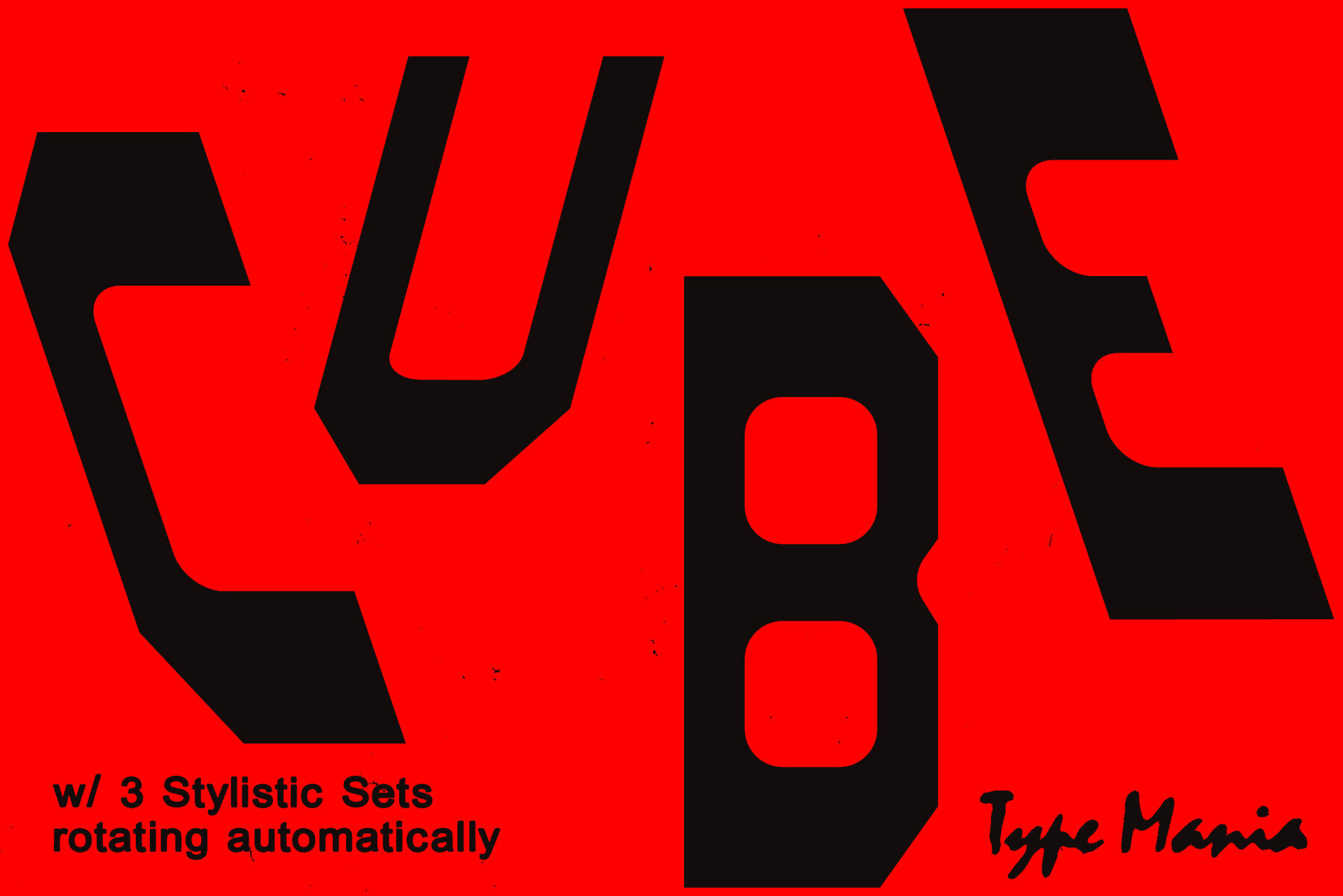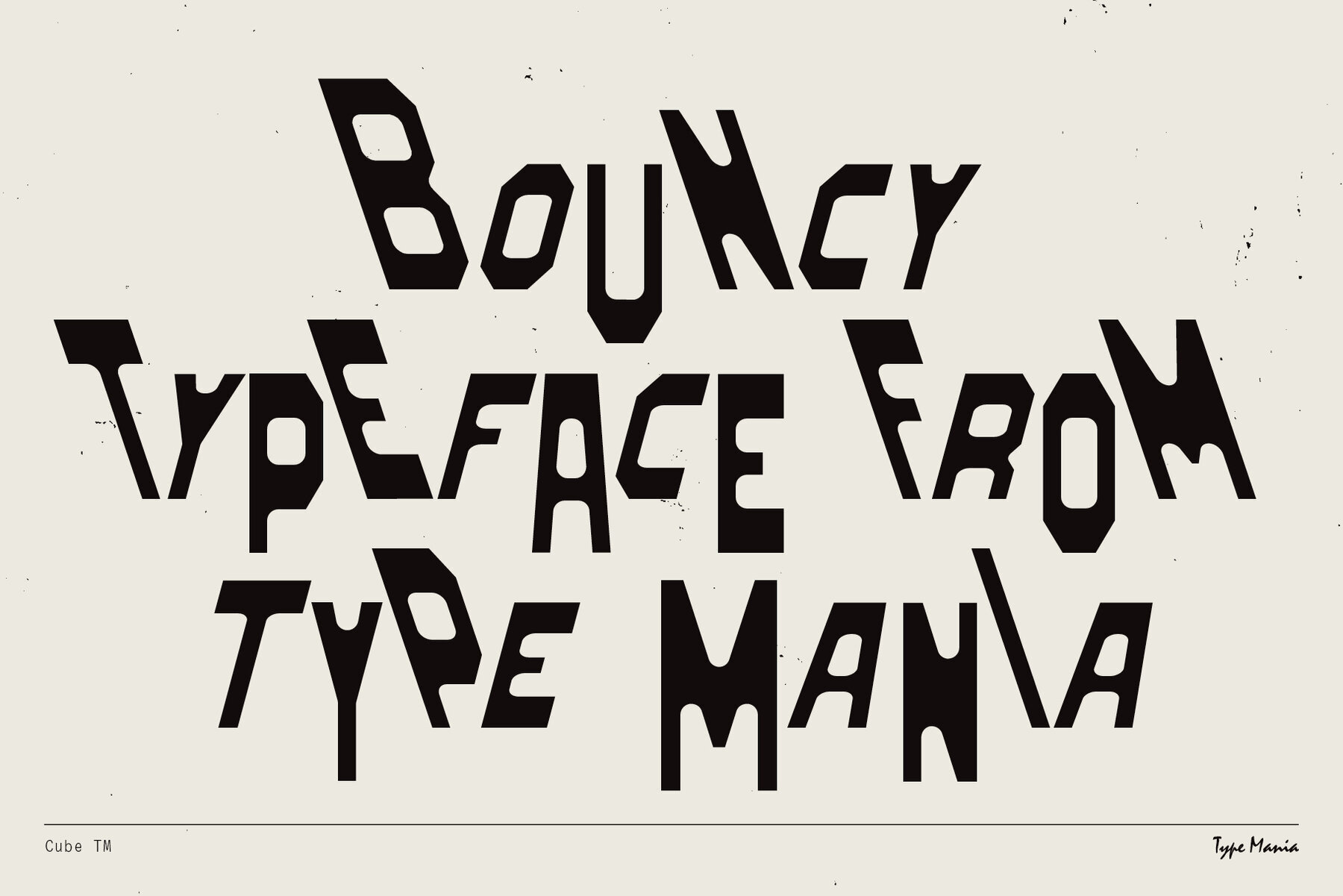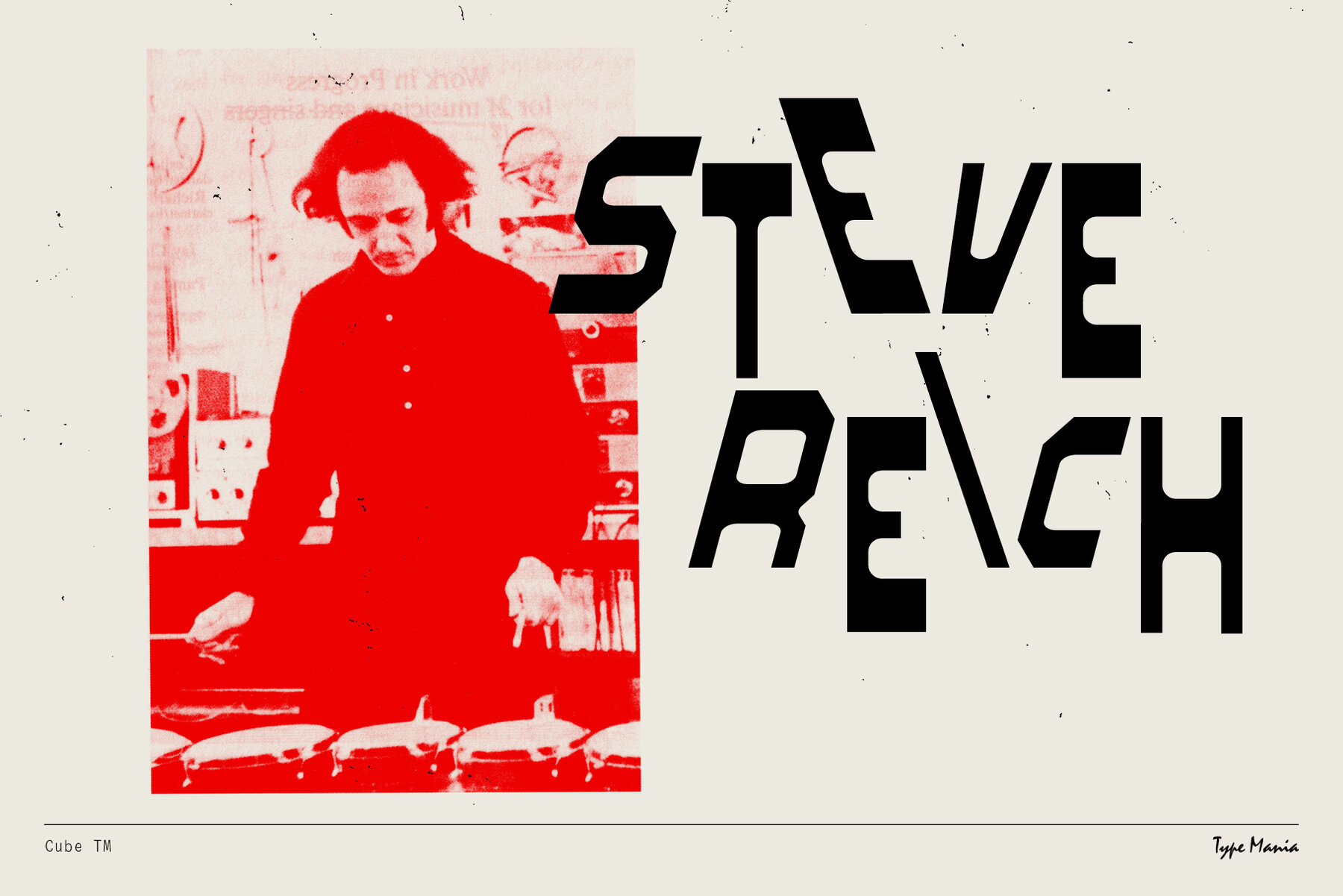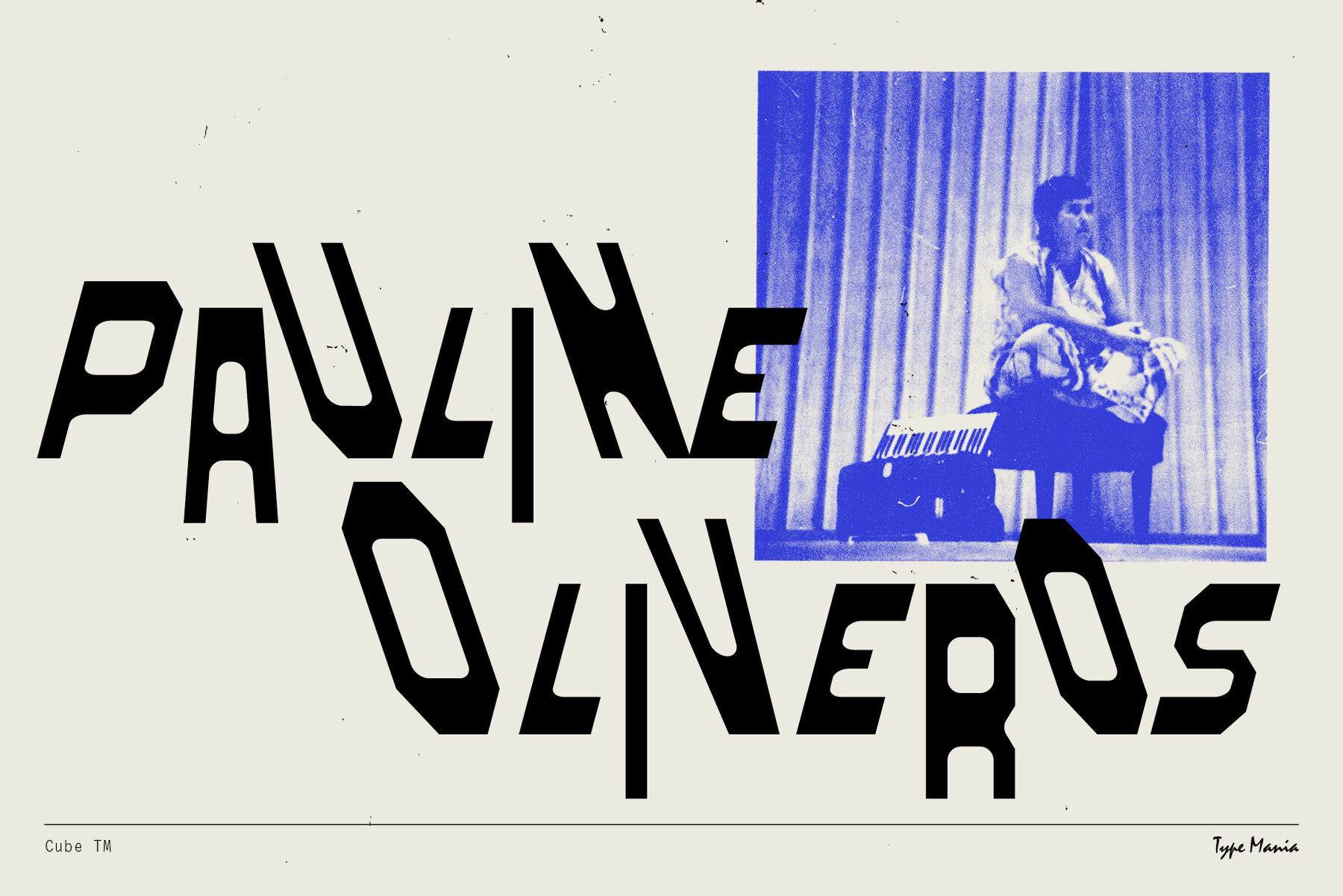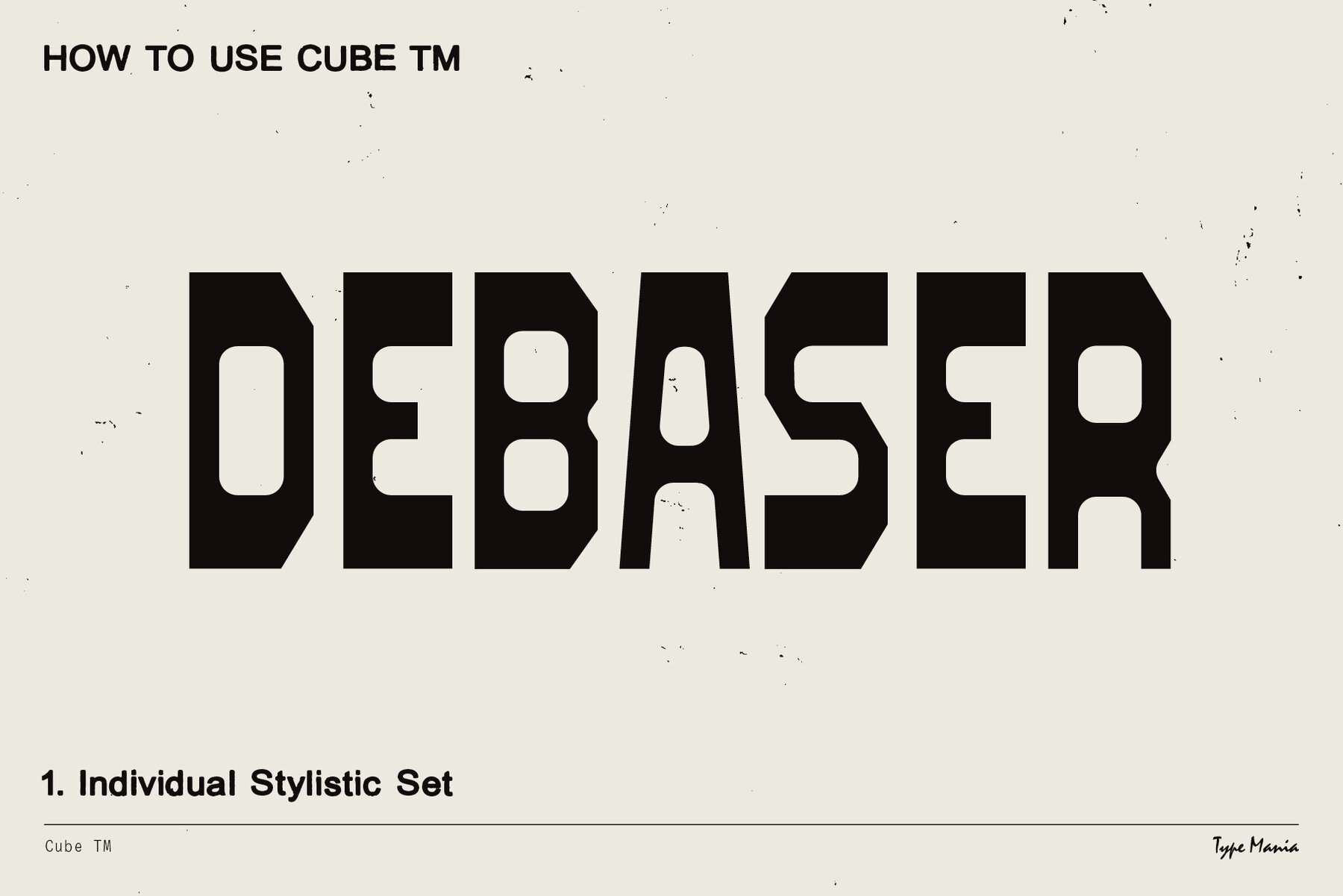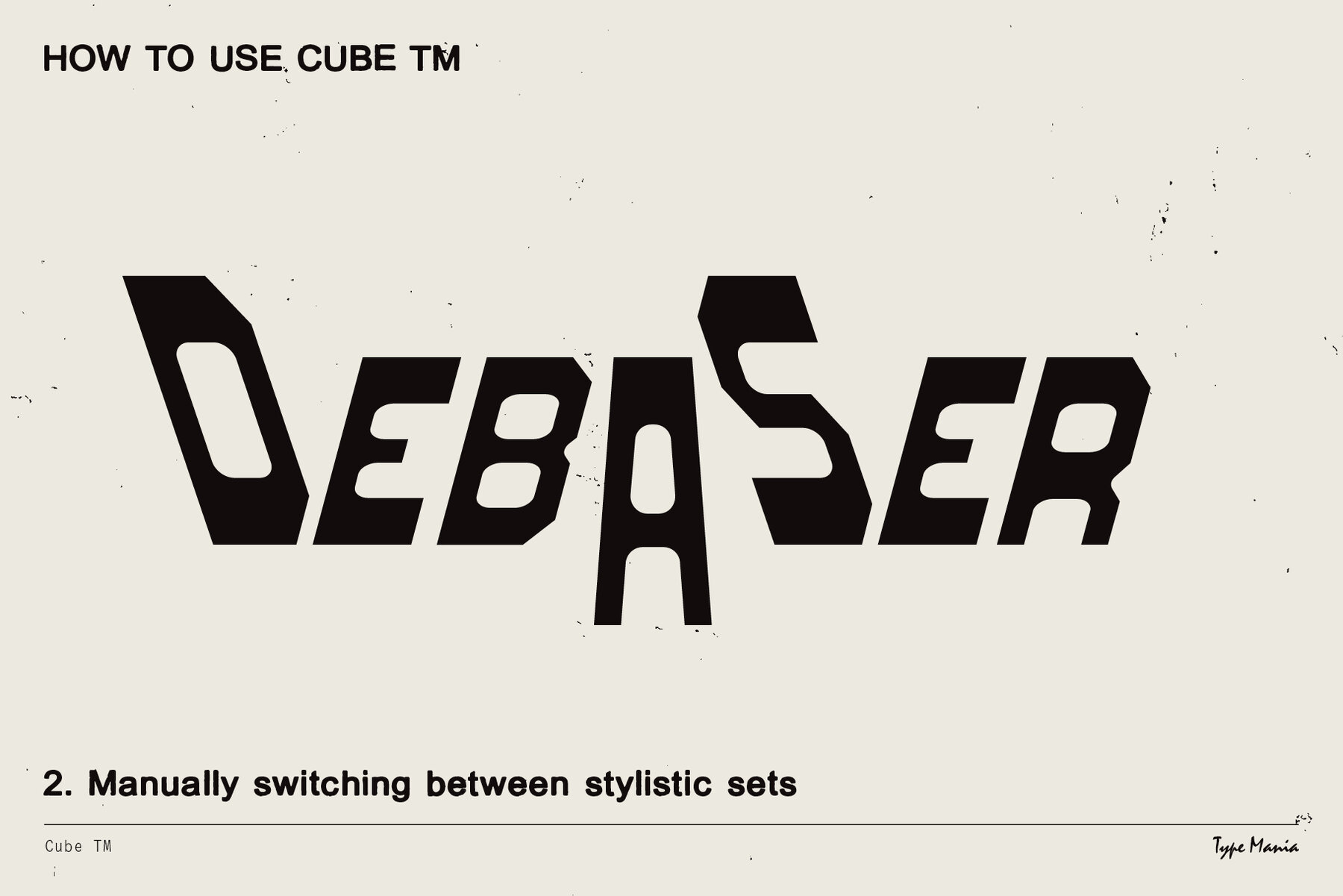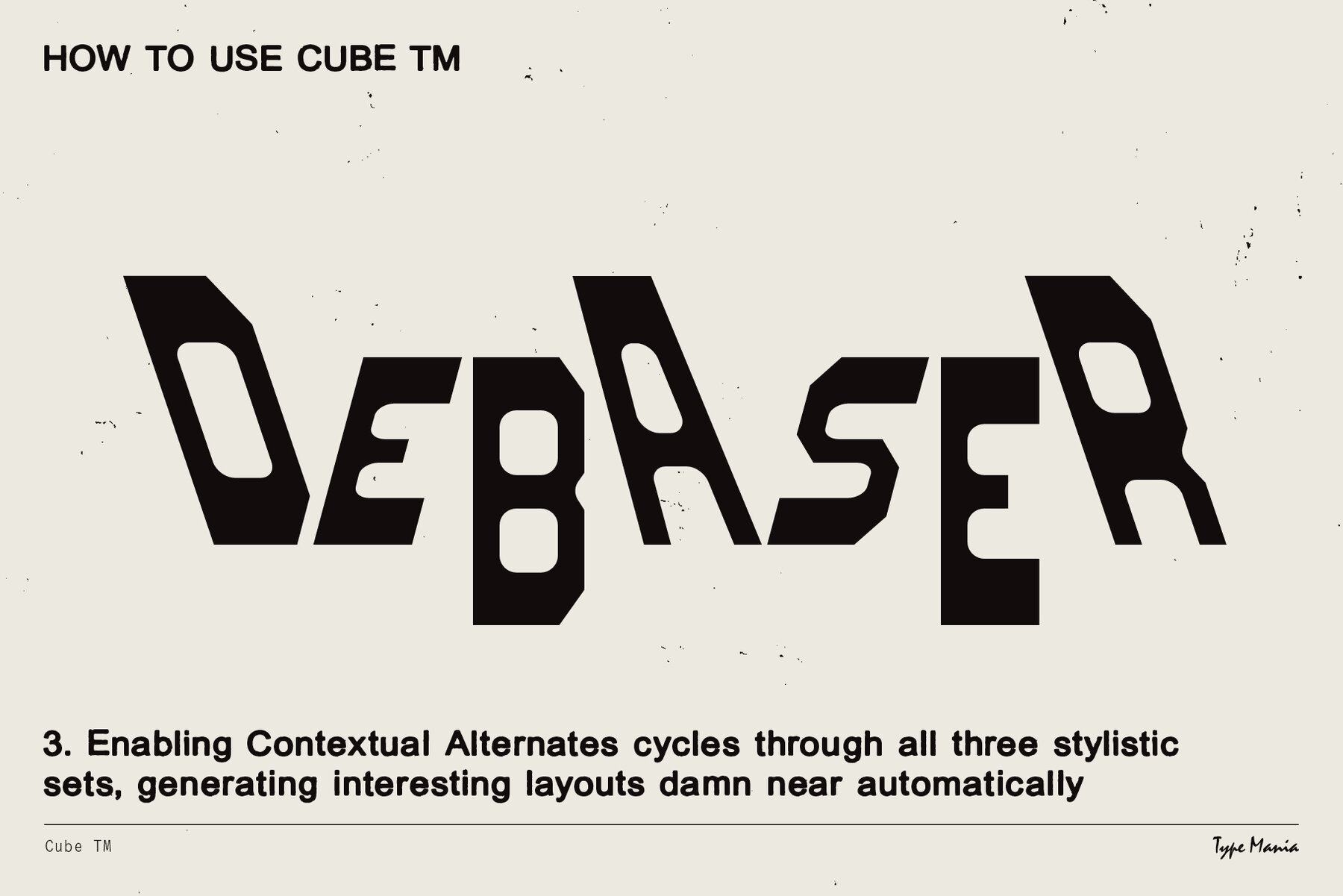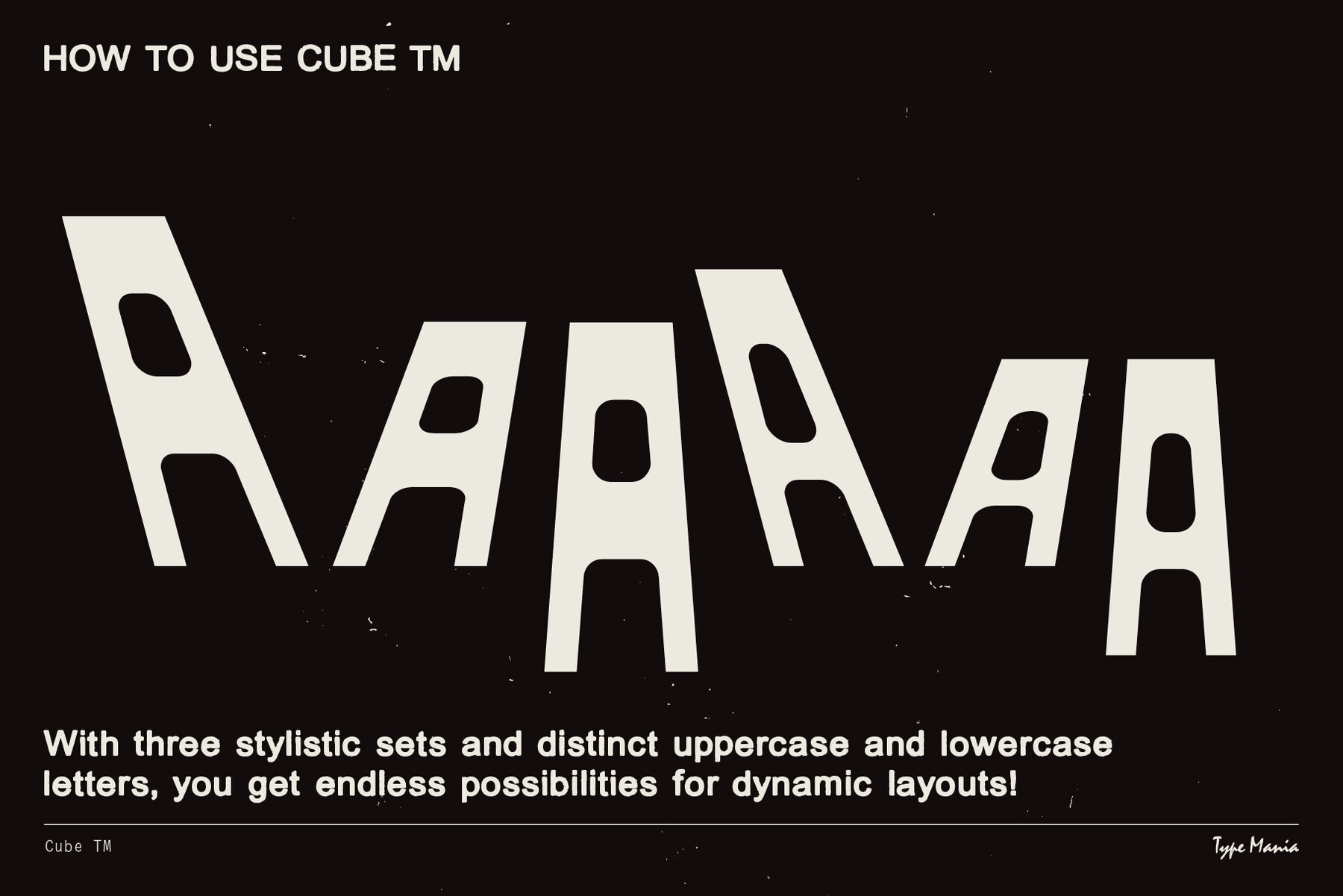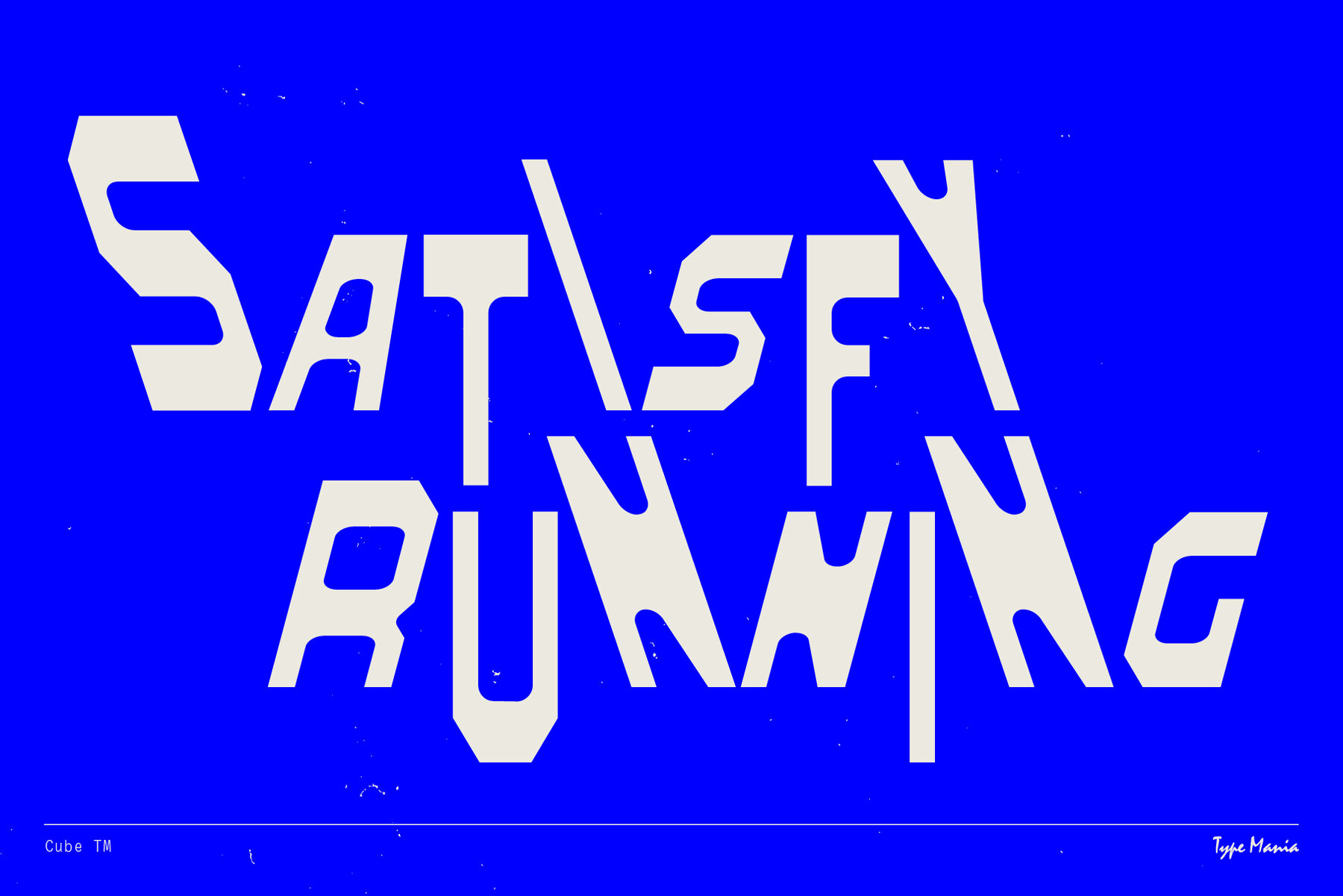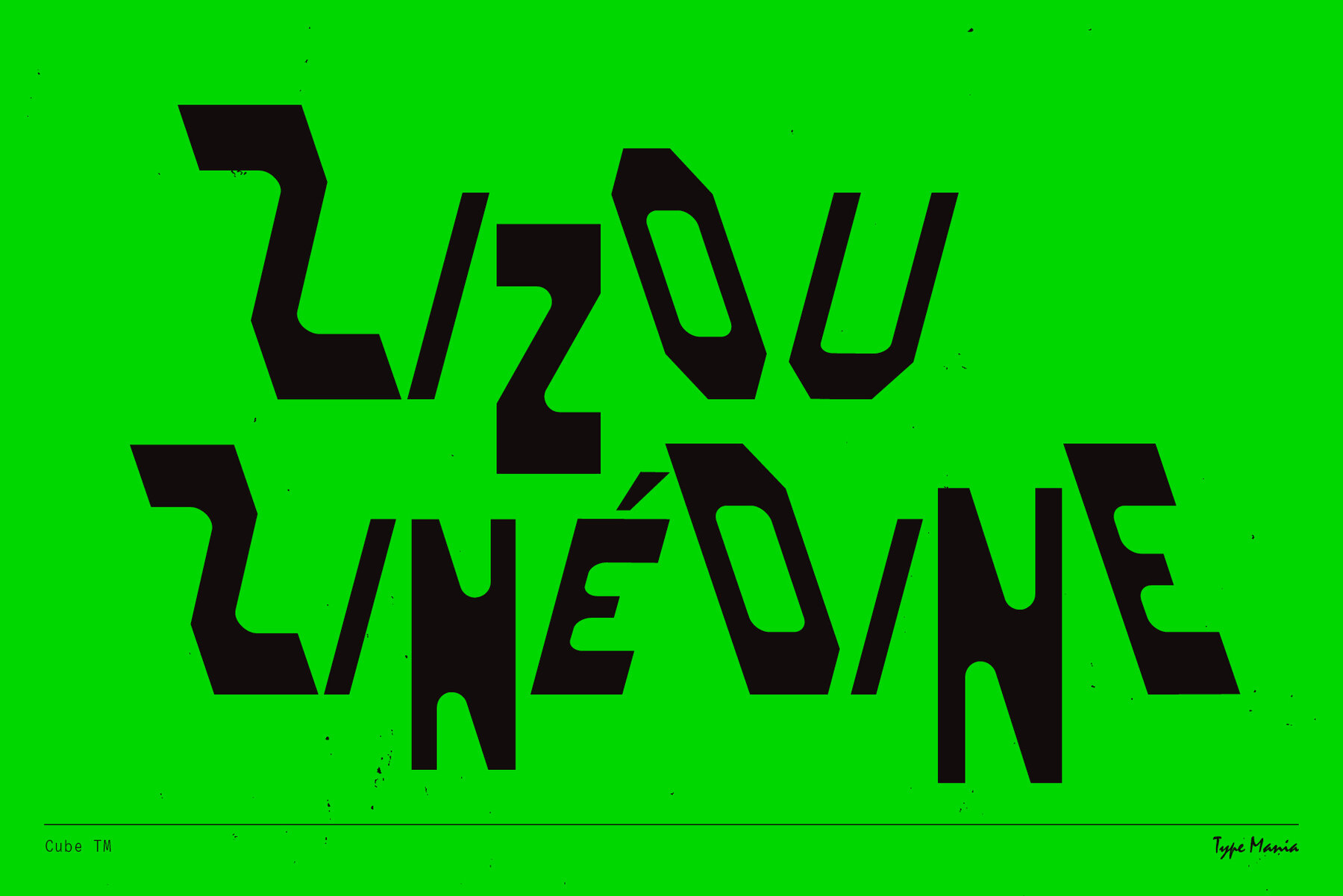
Cube TM: Brutalism Meets Rhythmic Design
Embrace the union of rigid formality and creative variability with Cube TM. This font draws inspiration from brutalism, yet introduces a refreshing twist through its unexpected rhythm. Utilizing three alternating stylistic sets, Cube TM strikes a balance between structure and dynamic expression, making it an intriguing choice for diverse design projects.
• Three stylistic sets offering variation in design
• Automatic shifting between stylistic sets